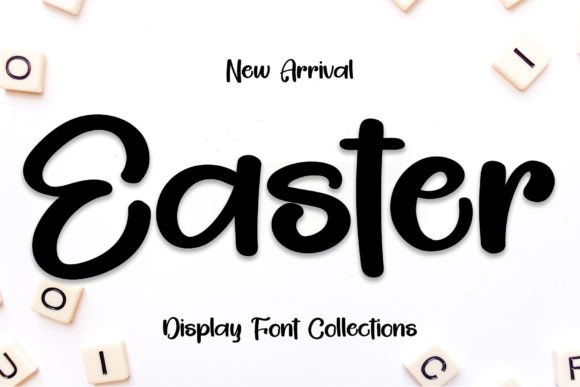
Looking for a script font that's both stylish and modern? Look no further than Easter, the latest creation from YanStudio. This font family is perfect for all of your creative projects, with its impeccable form and contemporary atmosphere. Inspired by classic calligraphy, Easter is the perfect way to add a touch of elegance and sophistication to your work.
With its balanced and varied letterforms, Easter is the ideal choice for any project, whether you're designing a logo, creating a wedding invitation, or crafting a beautiful greeting card. Its versatility and unique character make it the perfect choice for all types of design work, from bold and dramatic headlines to subtle and sophisticated body text.
The Easter font family includes a range of different styles, from light and delicate to bold and impactful. With its beautiful curves and flowing lines, this font is the perfect choice for any project where elegance and beauty are key. And with its wide range of ligatures and alternate characters, Easter offers endless possibilities for customization and personalization.
FEATURES:
- Stylish handwritten script font
- Contemporary atmosphere inspired by classic calligraphy
- Balanced and varied letterforms
- Versatile and unique character
- Range of styles from light to bold
- Wide range of ligatures and alternate characters